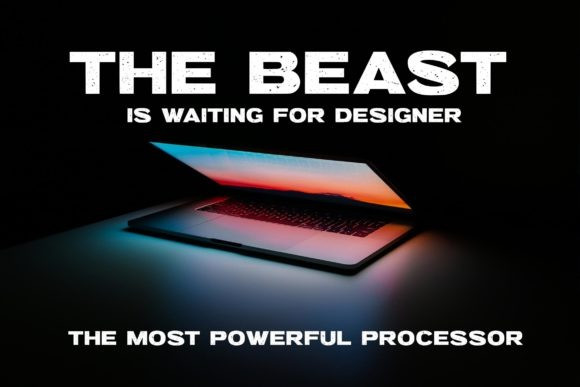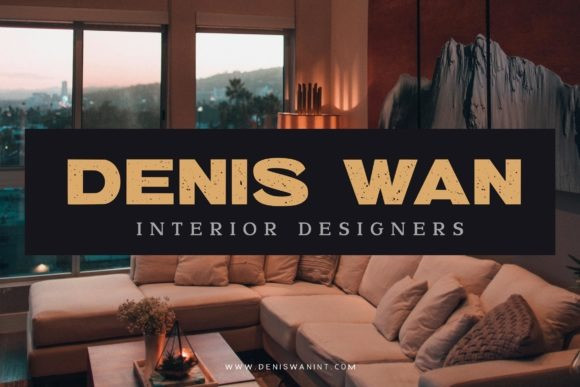
Blasto Distort Font
Blasto Distort is a bold and rough textured display font. It can easily be matched to an incredibly large set of projects, so add it to your creative ideas and notice how it makes them stand out!